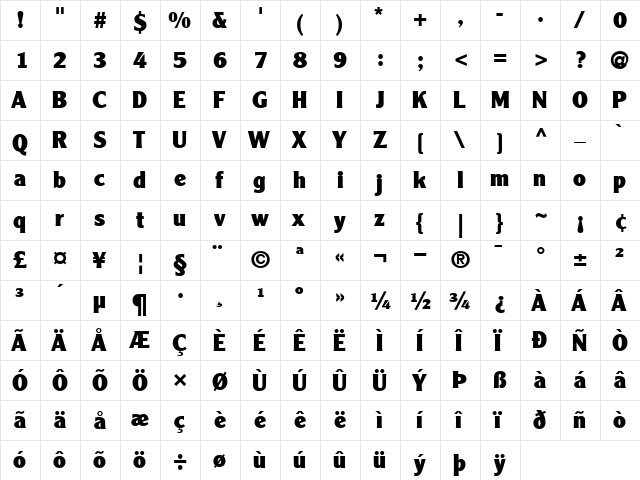
ClearfaceGothicLH95-Black Black Font Preview
ClearfaceGothicLH95-Black Black
Design Context for ClearfaceGothicLH95-Black Typeface
ClearfaceGothicLH95-Black has the quiet confidence of well-executed sans-serif typography: versatile, unobtrusive, and dependable at any size.
Font Pairing: Works well alongside a characterful serif or display font that can carry the expressive load while ClearfaceGothicLH95-Black handles the functional copy.
Pro Tip: Use ClearfaceGothicLH95-Black for UI labels, navigation, and short-form body copy where clean legibility is the priority.